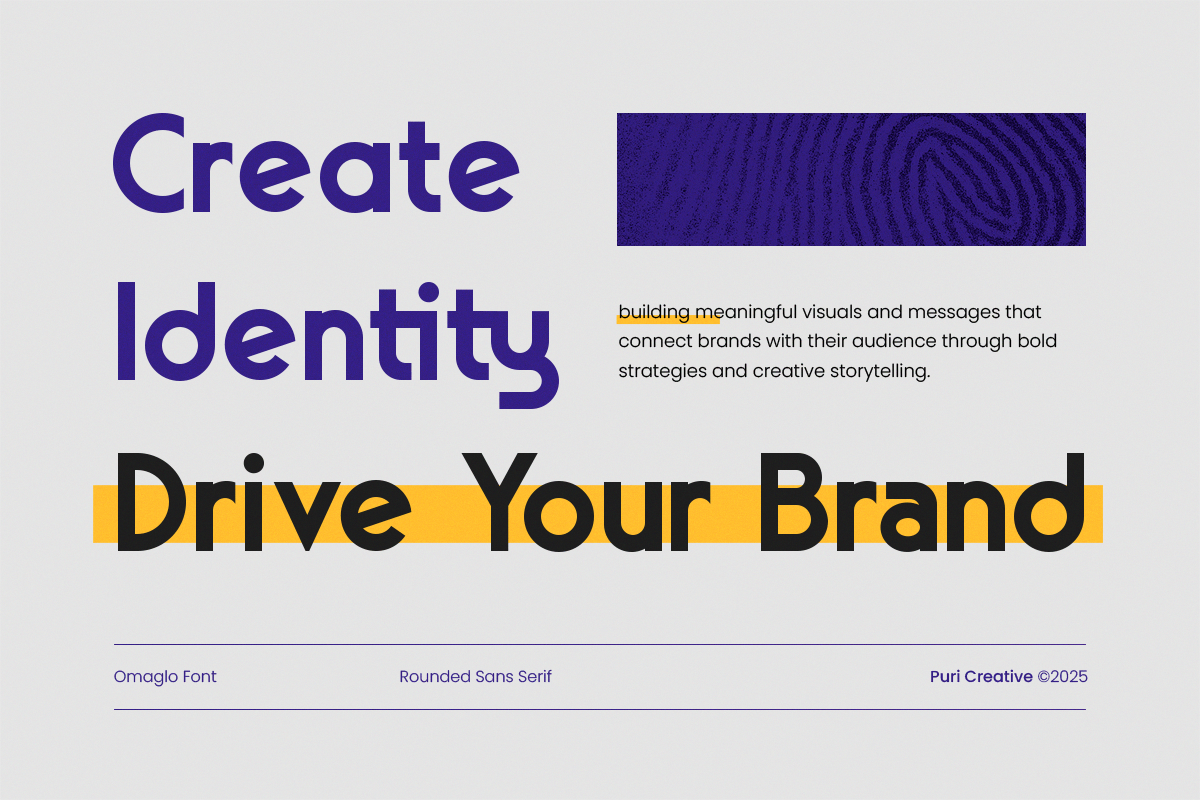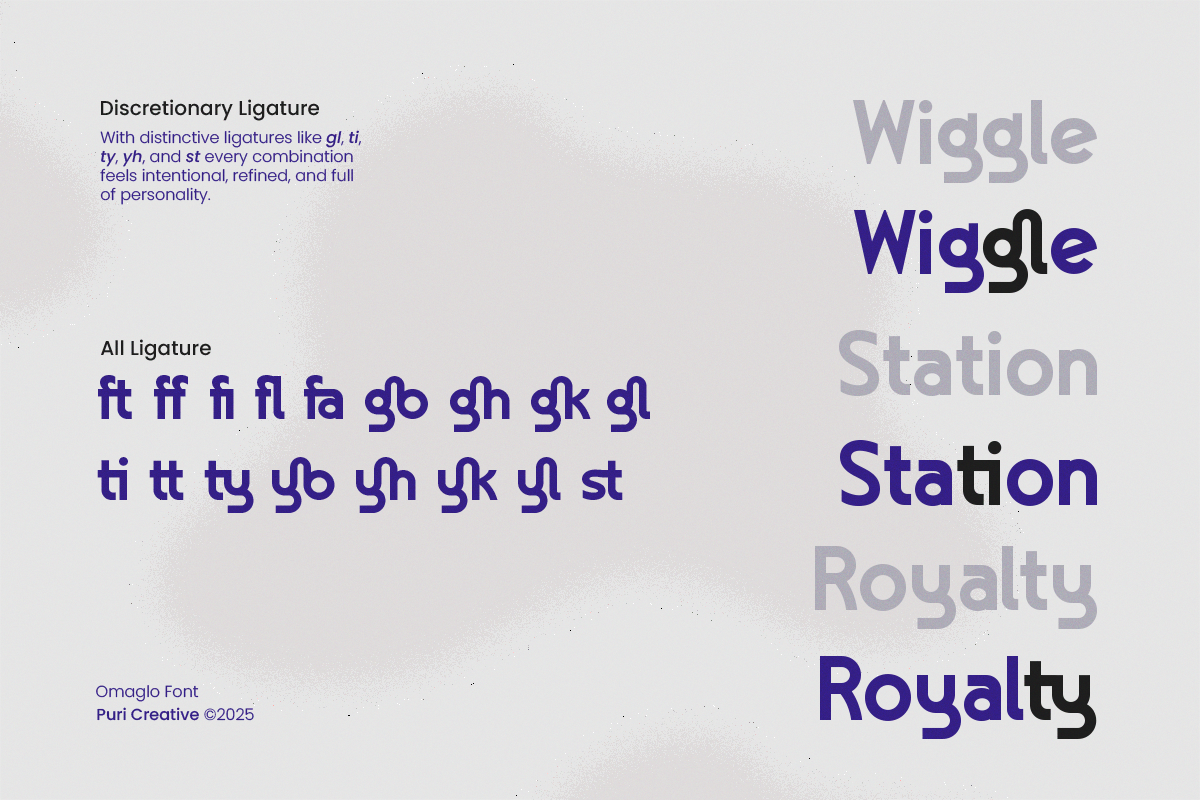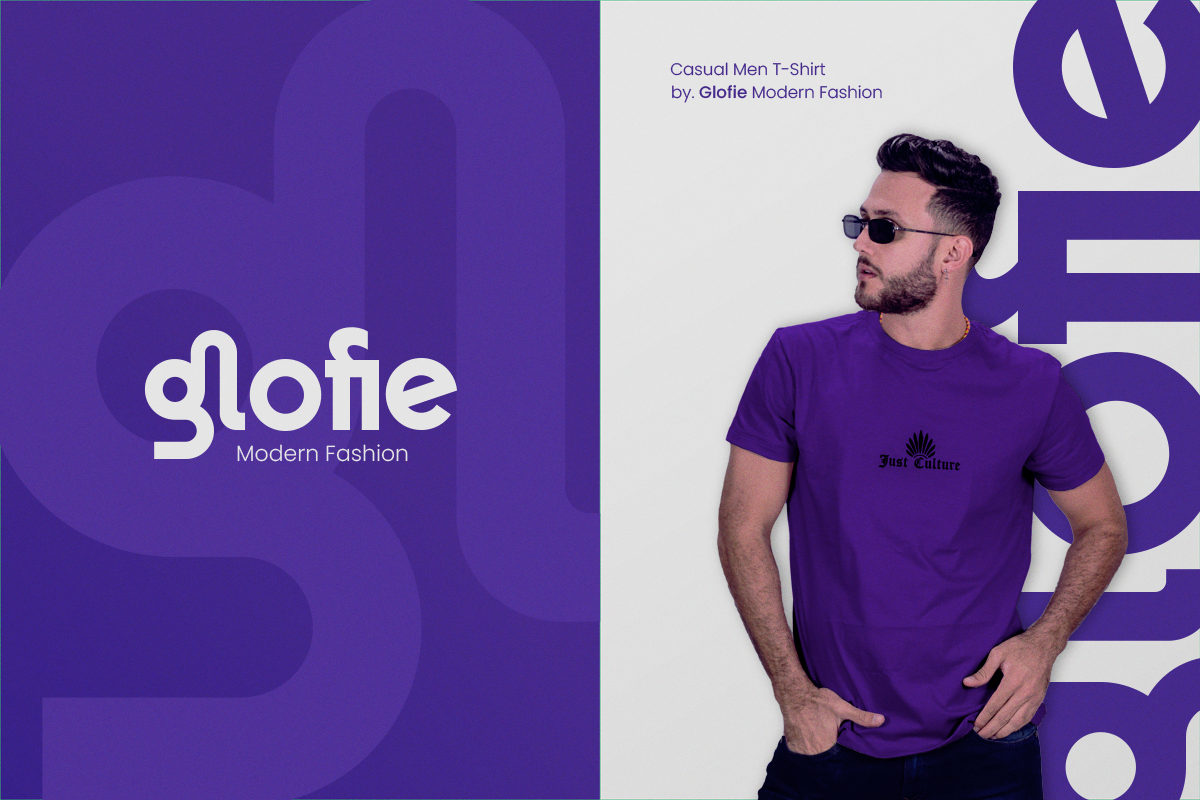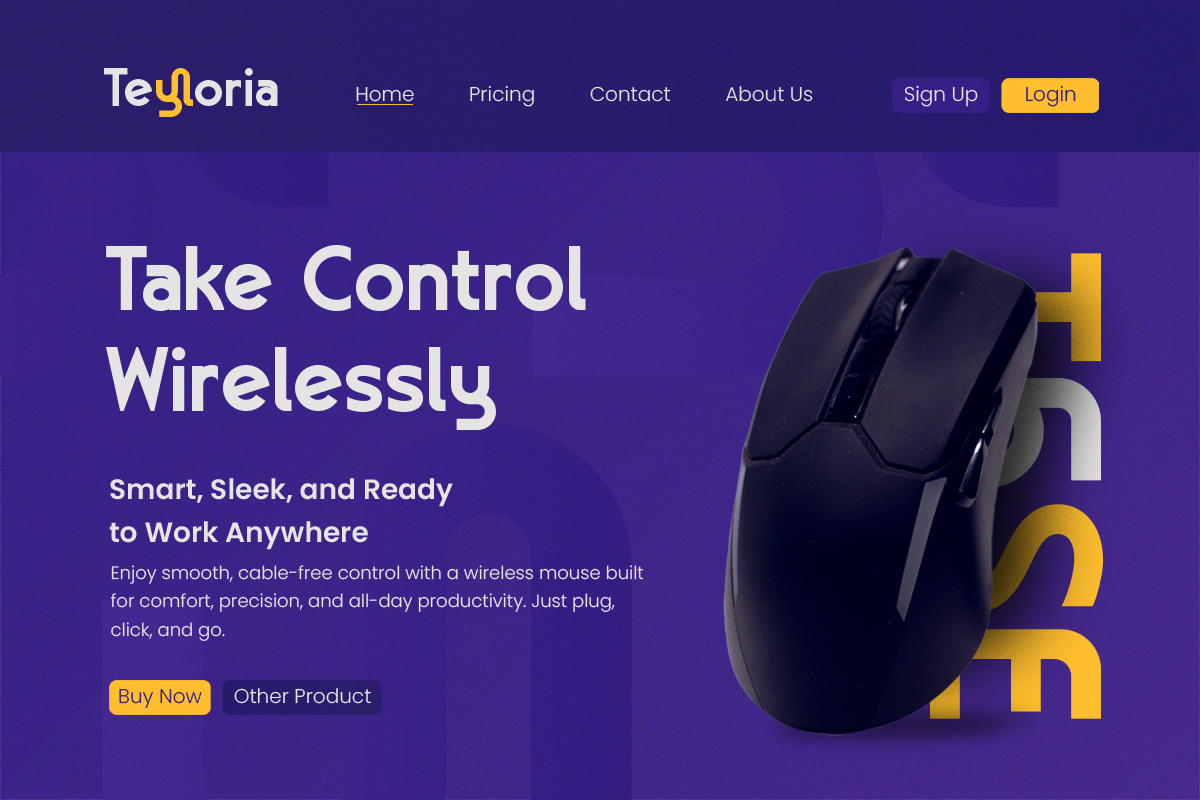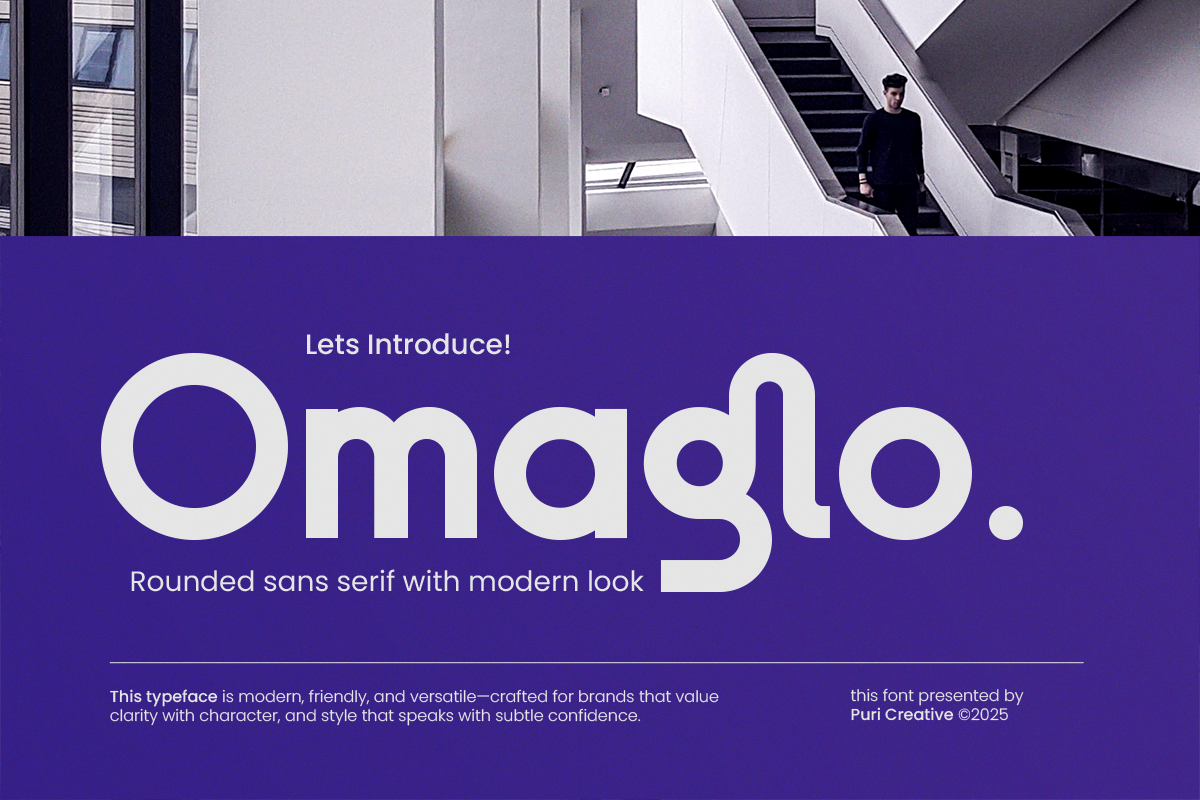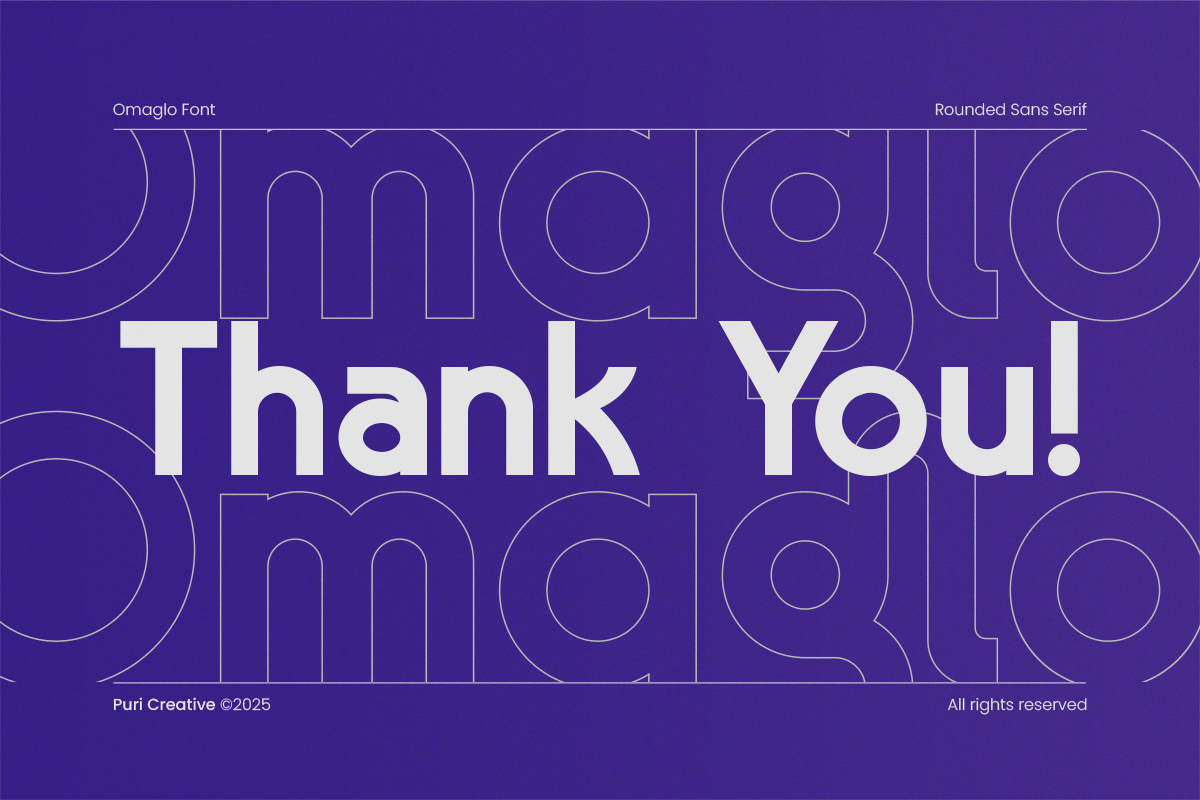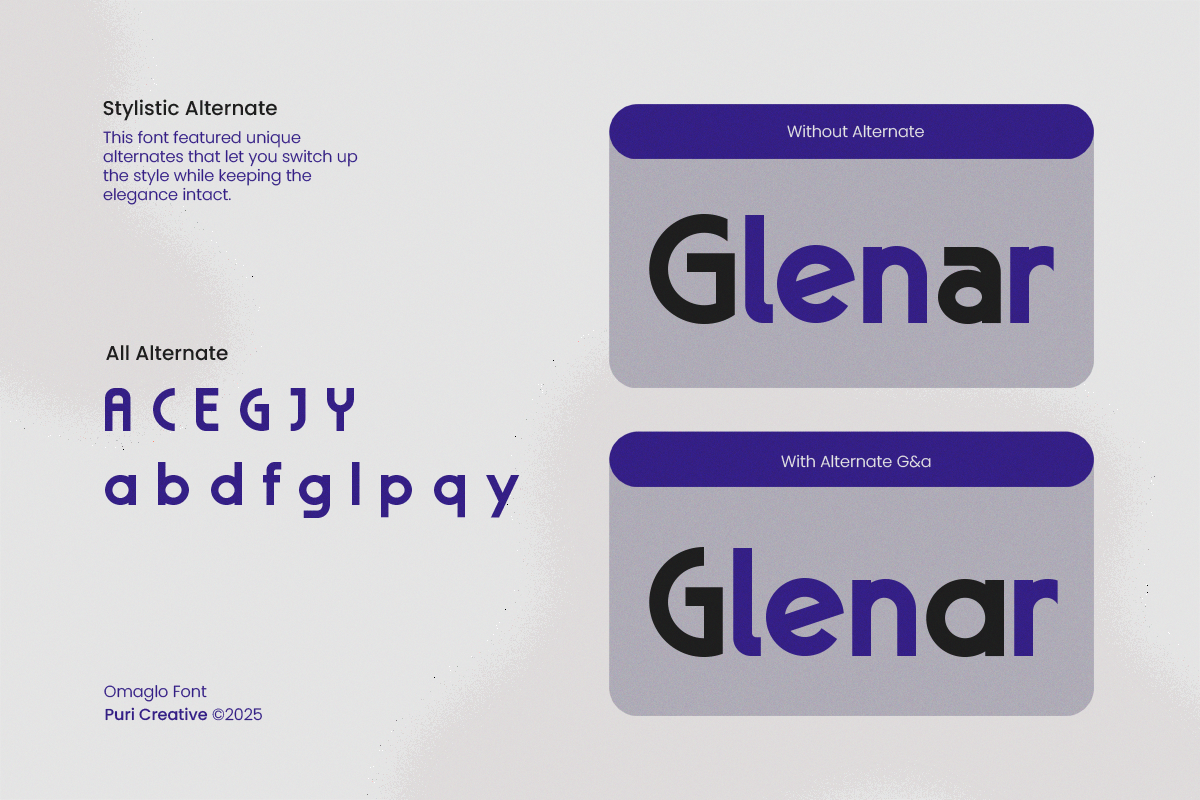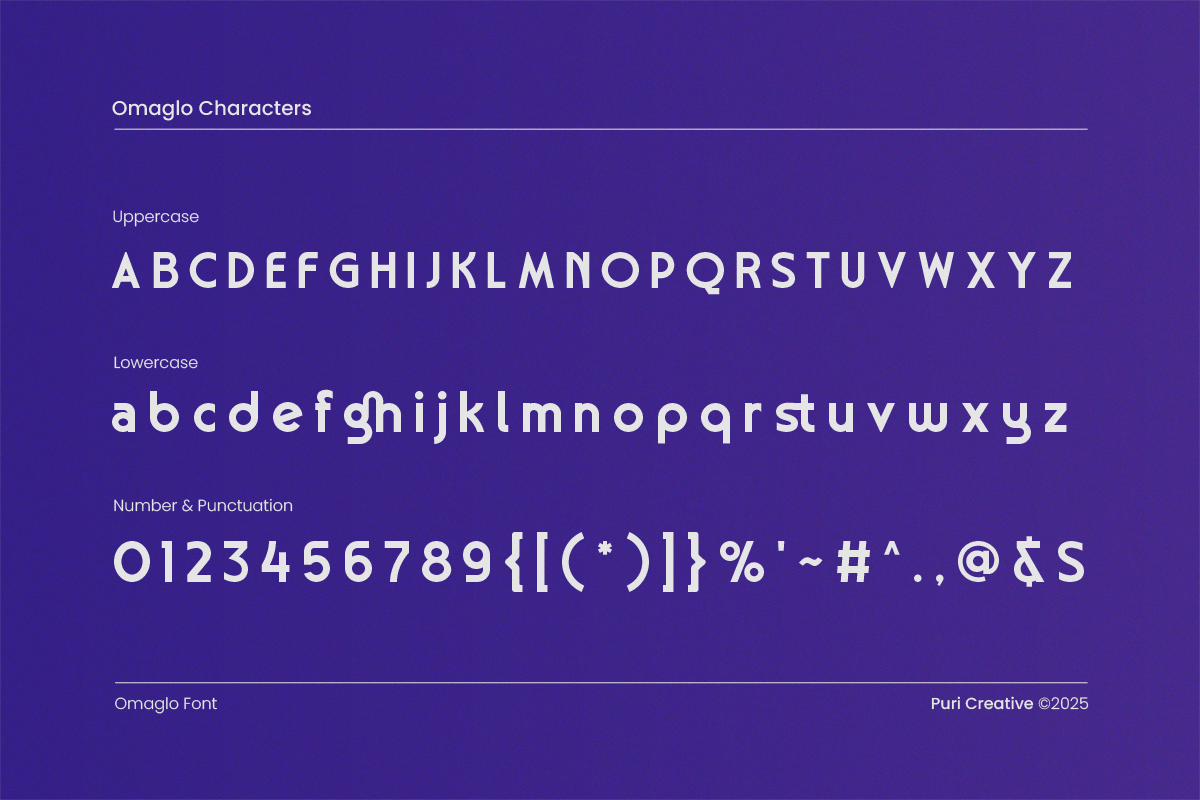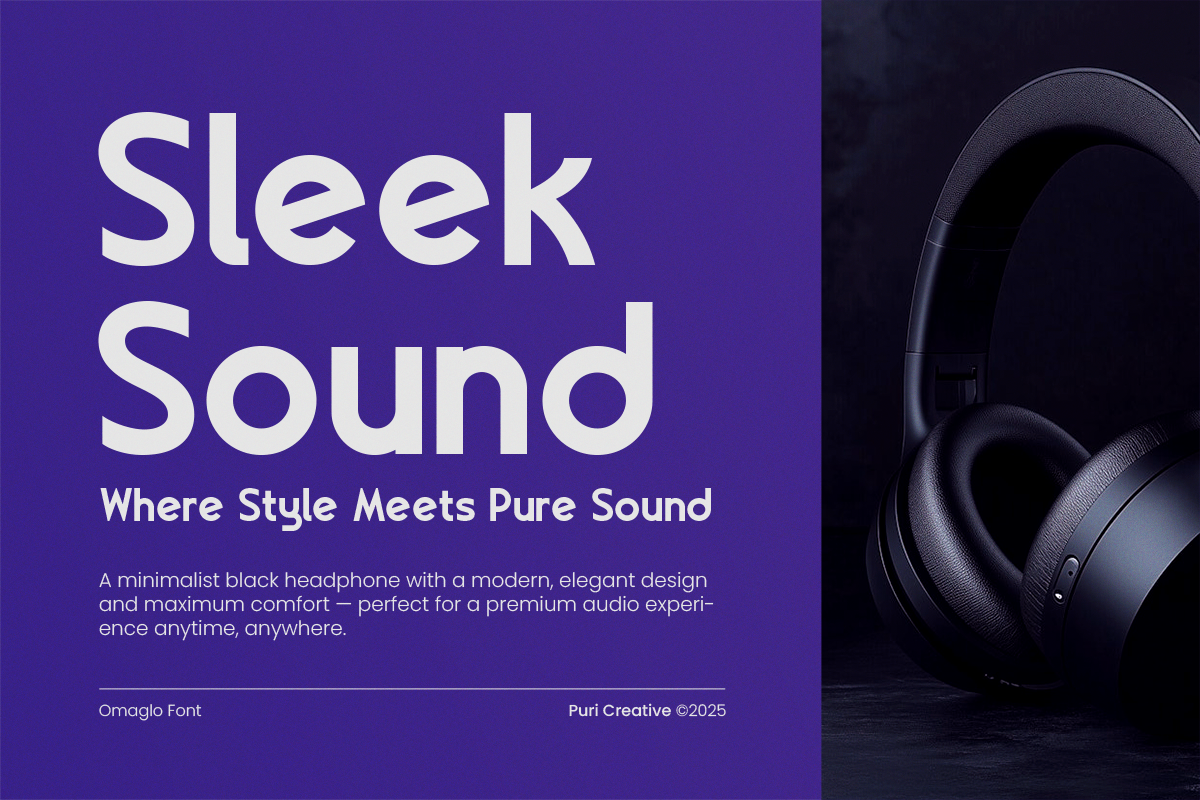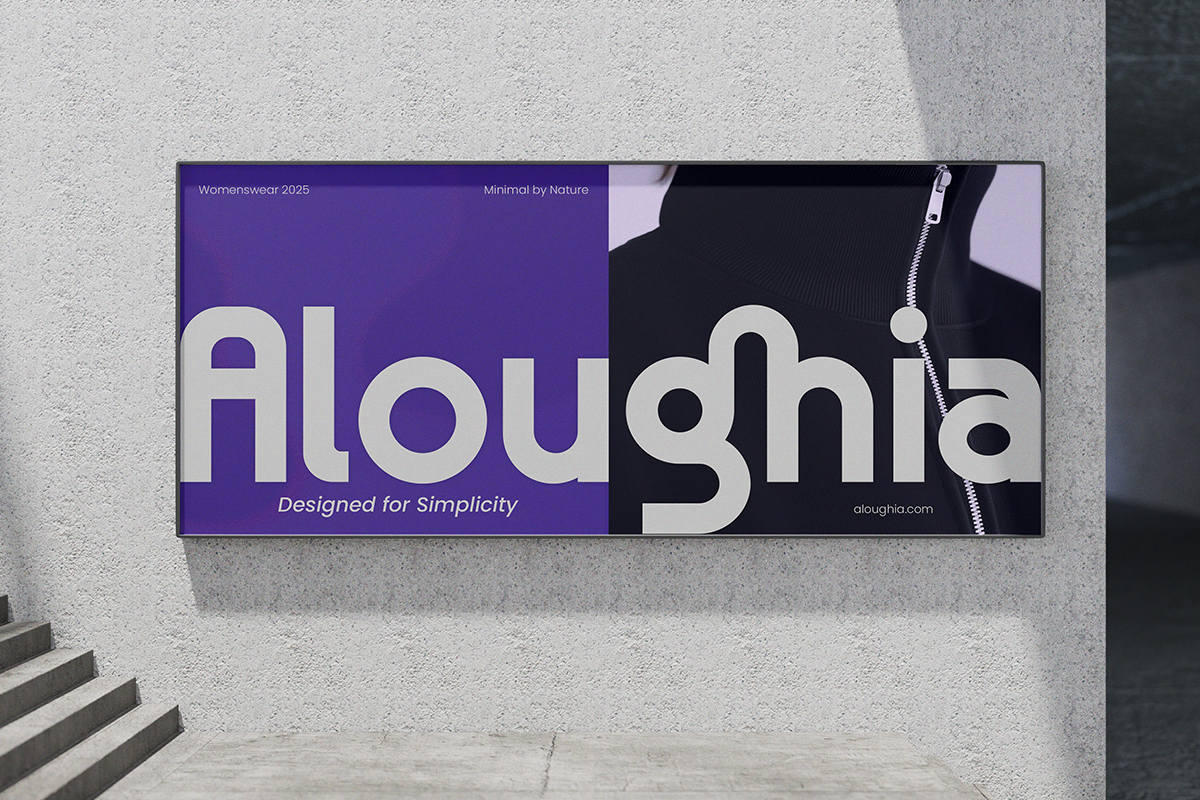
Omaglo – Unique Modern Sans Font
Omaglo – A Unique Modern Sans with a Futuristic Edge
Introducing Omaglo, a modern sans typeface that merges minimalist elegance with bold innovation. Inspired by contemporary design and futuristic aesthetics, Omaglo is crafted for those who seek a distinctive yet versatile typographic experience. Its 27+ alternates and ligatures create endless possibilities, making every word feel dynamic and expressive.
With a sleek and sophisticated form, Omaglo is perfect for branding, editorial layouts, packaging, posters, and digital design. Its clean lines and refined details give a futuristic touch while maintaining a luxurious yet minimalist feel. Whether for tech-inspired projects or high-end creative works, Omaglo adapts effortlessly to modern visual demands.
Designed to transcend time, Omaglo also supports multilingual typography, making it ideal for a global audience. Elevate your designs with a font that embodies innovation, versatility, and bold creativity—Omaglo, where the future meets design.